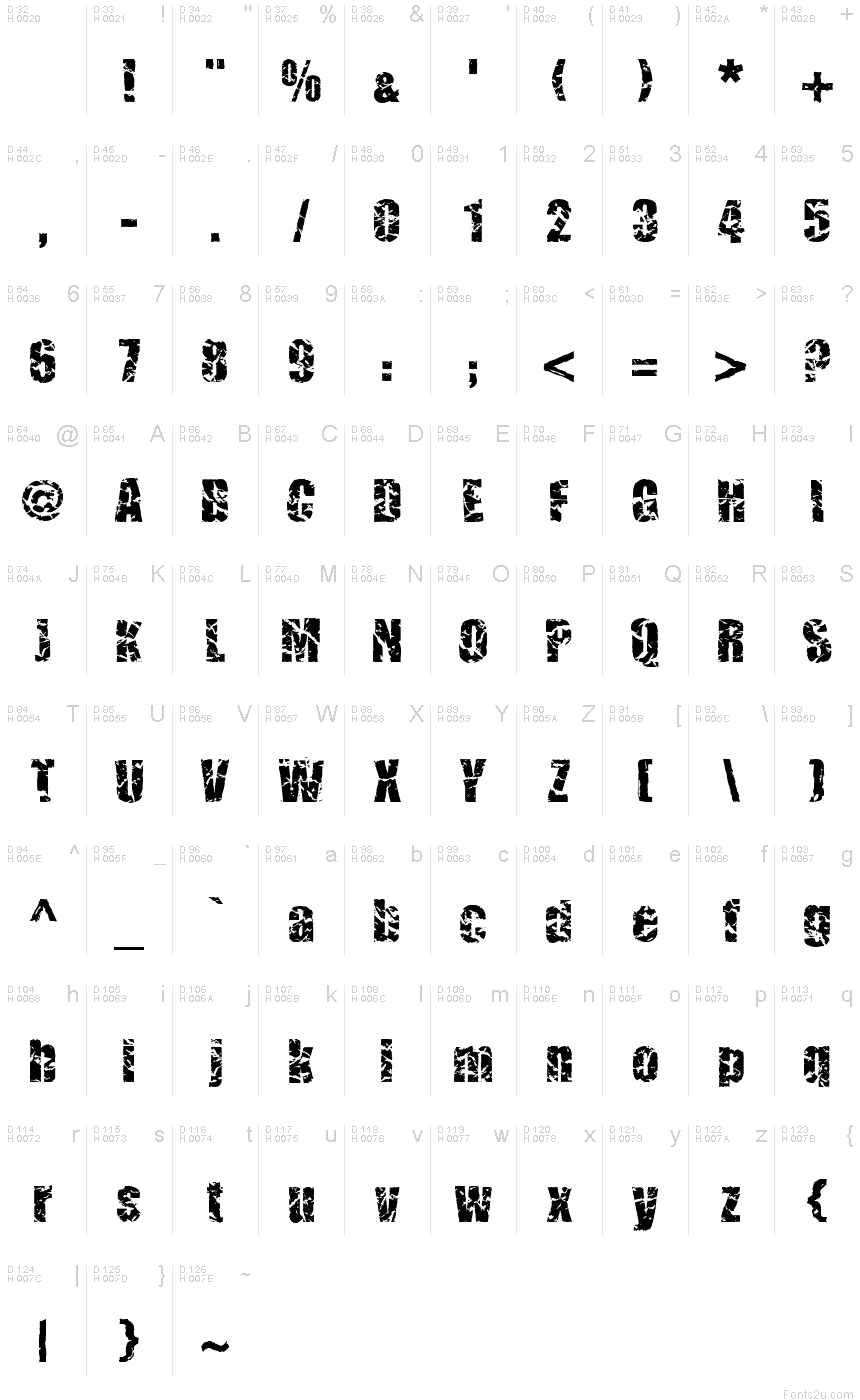
CMCorruged
CMCorruged font by C. Masci of CMFonts is a free eroded display font. Its heavy, black forms look scraped and splintered, as if the ink has been dragged across rough cardboard, giving every word a raw, battered charge. The texture does most of the talking, so even a short headline feels noisy, gritty, and alive.
Using CMCorruged works beautifully for punk flyers, horror posters, album covers, skate graphics, zines, game titles, and distressed logo work. This free font holds its punch best at larger sizes, and it pairs nicely with a plain sans serif for body copy so the rough edges stay sharp and readable.